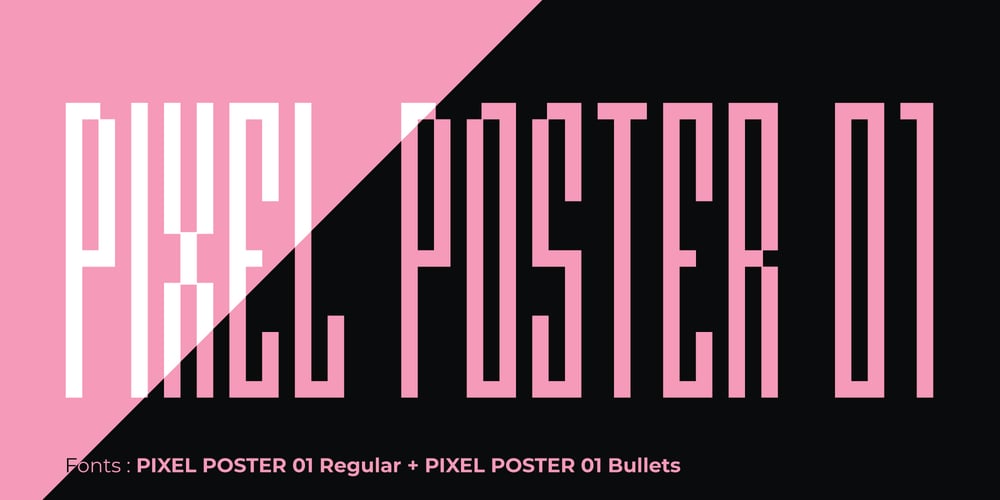
Pixel Poster 01 Font Family was designed by Bartosz Panek and published by Fontsphere. Pixel Poster 01 contains 2 styles and family package options. Pixel Poster 01 is a pixelated display typeface that evokes a sense of retro futurism and minimalist aesthetics. Inspired by classic video game fonts and futuristic posters, it features a narrow, condensed structure that makes it ideal for creating eye-catching headlines, titles, and logos. Its clean and geometric appearance ensures high legibility, even at smaller sizes.Pixel Poster 01 is available in two variations: Pixel Poster 01 Regular: This is the standard version of the typeface, featuring a clean and geometric appearance that makes it highly legible. Pixel Poster 01 Bullets: This version of the typeface replaces the pixels with small ‘bullets’, giving it a more playful and decorative look while still maintaining its futuristic vibe. Here are some of the key characteristics of Pixel Poster 01: Minimalist design: The font’s narrow, condensed structure and clean lines embody a minimalist aesthetic, making it well-suited for modern and contemporary designs. Futuristic feel: Inspired by classic video game fonts, Pixel Poster 01 exudes a retro-futuristic vibe, perfect for projects that want to capture a sense of nostalgia and innovation. High legibility: Despite its pixelated nature, the font remains highly legible due to its clean and geometric shapes. Versatility: Pixel Poster 01 is versatile and can be used for a variety of purposes, including headlines, titles, logos, social media graphics, and product packaging. If you’re looking for a font that is both stylish and legible, and that can add a touch of retro futurism to your designs, then Pixel Poster 01 is an excellent choice.Here are some examples of how you can use Pixel Poster 01 in your designs: Create eye-catching headlines for your website or blog. Design futuristic logos for your brand or product. Add a retro-tech feel to your social media graphics. Use it for product packaging that stands out on the shelf. Create pixelated art and illustrations. With its unique blend of minimalism and futurism, Pixel Poster 01 is a versatile typeface that can add a touch of personality and style to a wide range of projects.